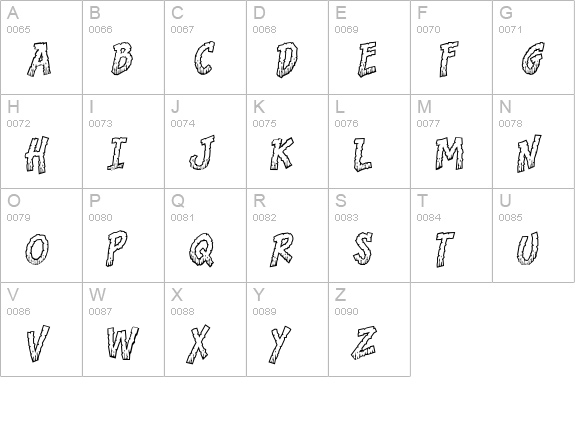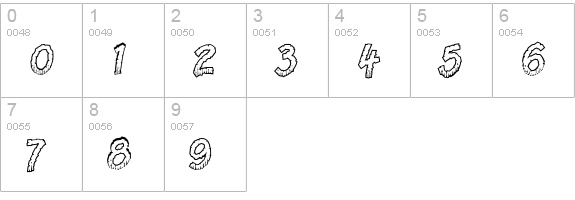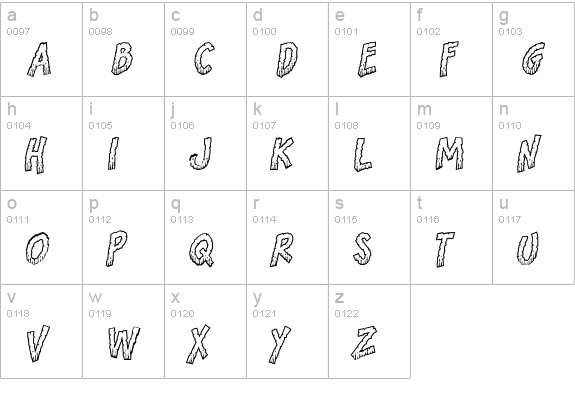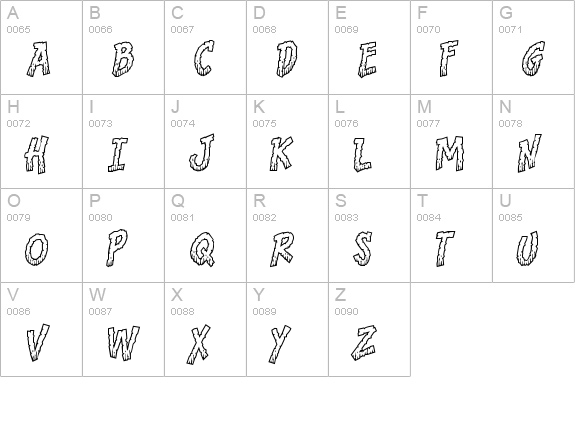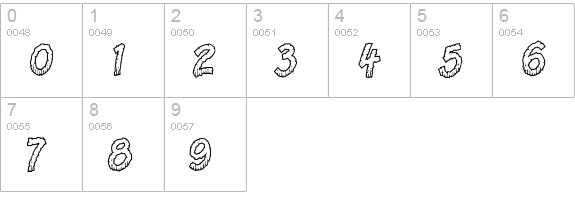
CCBrontoBurger-WellDone Font Details
Introducing CCBrontoBurger-WellDone font, a bold and eye-catching typeface that demands attention. This unique font exudes strength and confidence with its robust strokes and sharp edges, making it perfect for headlines, titles, and branding projects. The CCBrontoBurger-WellDone font is meticulously designed to stand out and leave a lasting impression on your audience. One of the best features of this font is that it is free to download at FontsMarket.com. This means you can easily access and use this striking typeface in your projects without any cost. Whether you're working on a poster, logo, or website design, the CCBrontoBurger-WellDone font will add a touch of boldness and style that will set your work apart. Don't miss out on the opportunity to enhance your designs with the CCBrontoBurger-WellDone font. Download it for free today and elevate your creative projects to new heights!